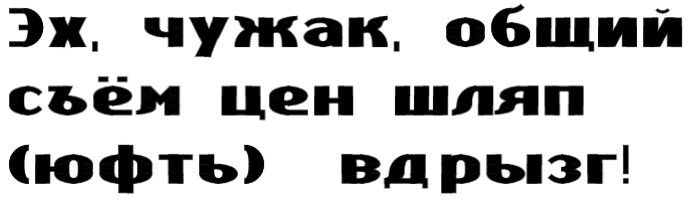
Skavurska2
Great work once again, I must admit that I prefer the uppercase V from the previous version. But nonetheless good stuff
Yeah, I kinda liked that “V” too. To me it seemed more balanced and fitting.
Great font. I love the diacritix and most of the Cyrillic. The missing Cyrillic letters don’t seem to hard to synthesise from existing forms.
But you know, the Cyrillic “К” (and from that, “Ж”) doesn’t need to be any different from the Latin “K”. And “Я” looks a bit funny. I’d be interested to know if a simple reversed “R” in its place would look any better.
The lower case 'c' is to die for. Make more like that.
I'm getting Emigre vibes.